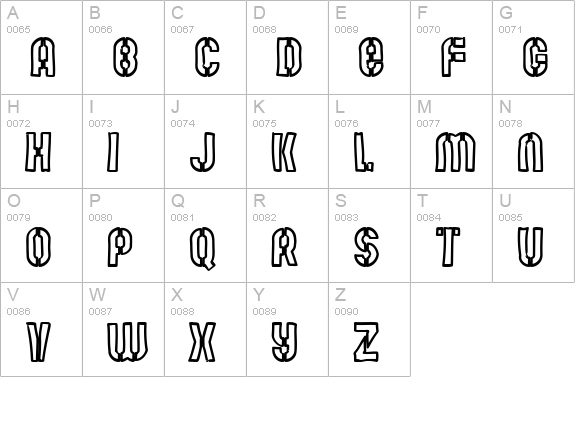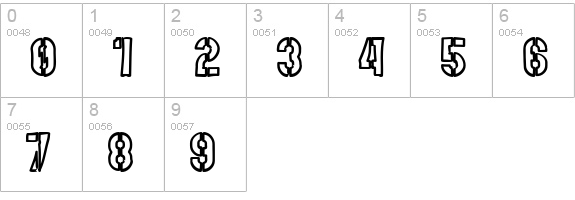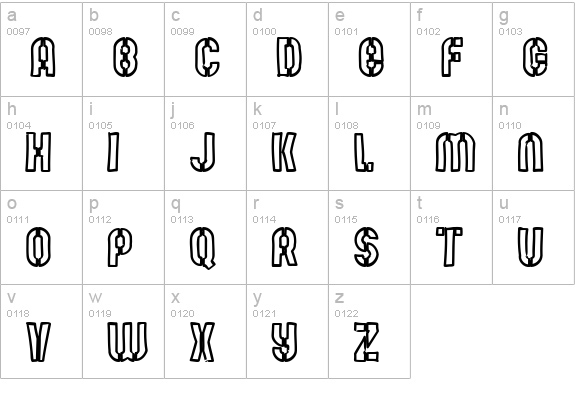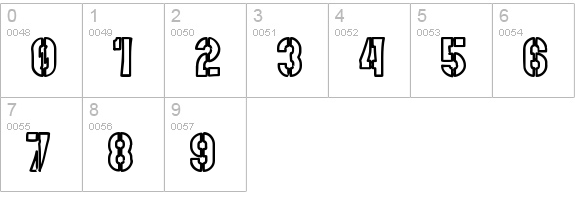
Mute Fruit White Krash Font Details
Mute Fruit White Krash font is a stunning display typeface that exudes elegance and sophistication. With its bold and eye-catching design, this font is perfect for creating impactful headlines, posters, logos, and more. The unique combination of sharp angles and smooth curves gives Mute Fruit White Krash font a modern and edgy look that is sure to make your designs stand out. The best part about Mute Fruit White Krash font is that it is completely free to download! You can easily get your hands on this stylish font by visiting FontsMarket.com and adding it to your collection. Whether you're a designer looking to add a fresh new font to your arsenal or someone who simply appreciates high-quality typography, Mute Fruit White Krash font is a fantastic choice that won't cost you a penny. Download it today and start creating stunning designs with this versatile and visually striking typeface.